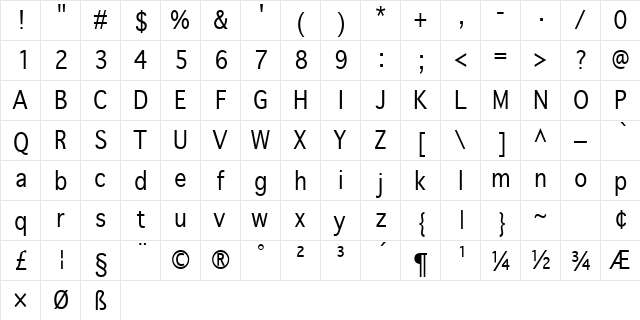
Gravilex Regular
Design Context for Gravilex Typeface
Gravilex offers clean, dependable letterforms without strong stylistic allegiance, making it a practical choice for designers who need flexibility.